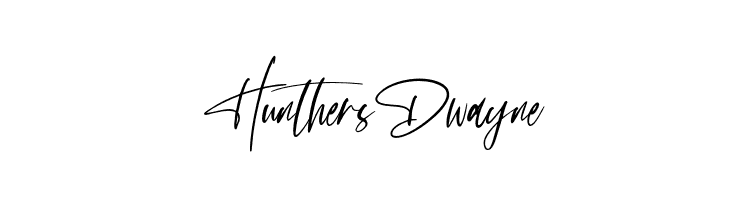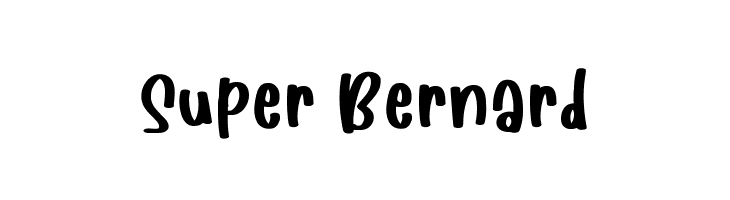
A sophisticated and flowing script font with elegant curves and unique flourishes.
A playful and elegant script font with decorative flourishes and medium contrast.
A bold, italic, and compact font with a modern and dynamic style.
An elegant, oblique font with thin strokes and a modern aesthetic.
A decorative font with playful heart-themed doodles.
A graceful and flowing script font with elegant, cursive strokes.
A bold, industrial-style font with a blocky, three-dimensional appearance.
A bold, textured font with a vintage, distressed style.
A playful, rounded font with consistent stroke width and a modern aesthetic.
A graceful script font with flowing, cursive letters and a sophisticated style.